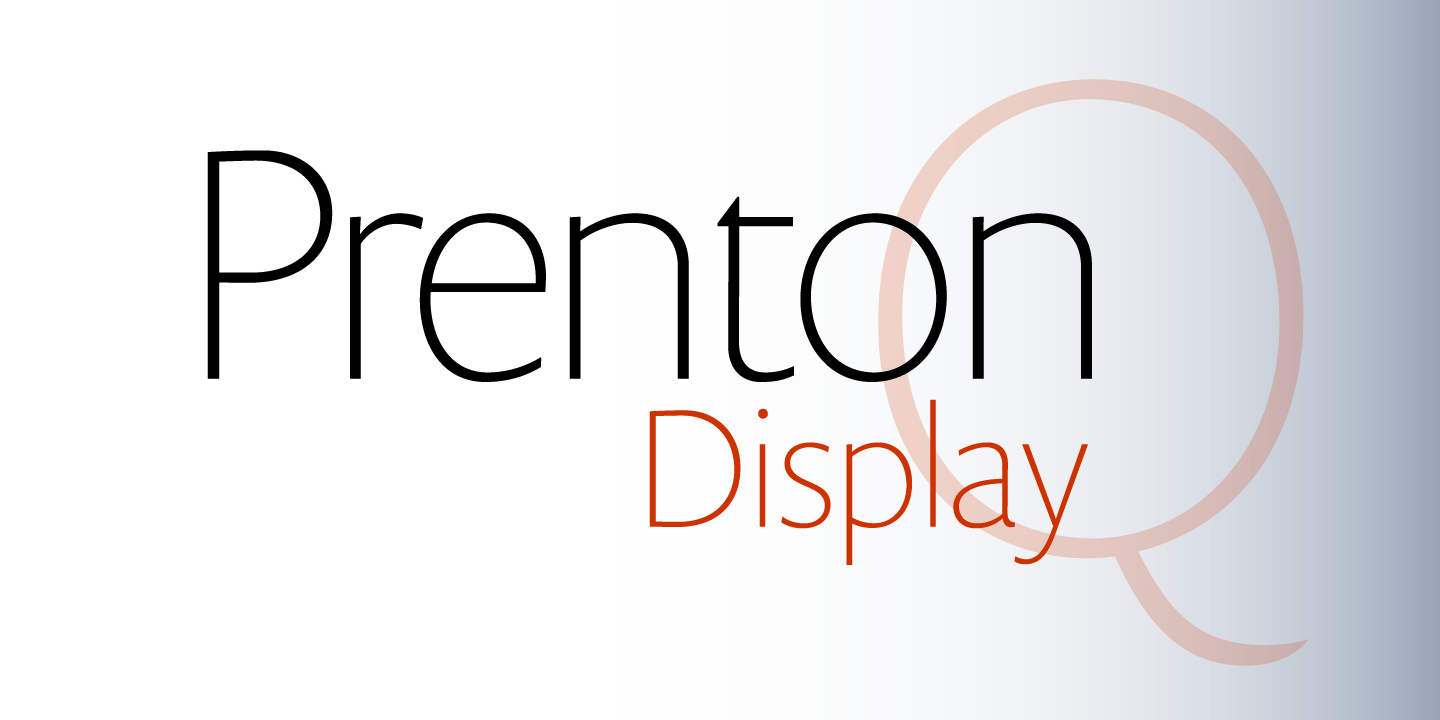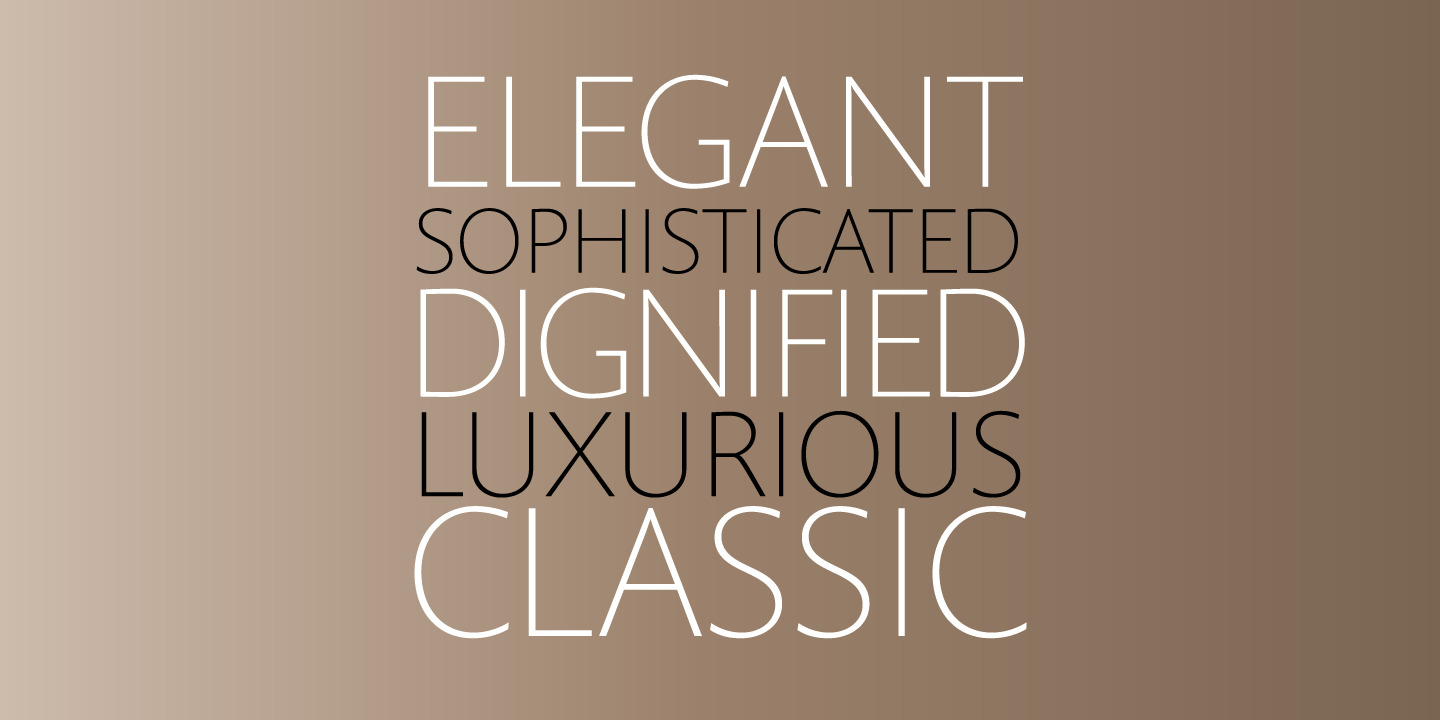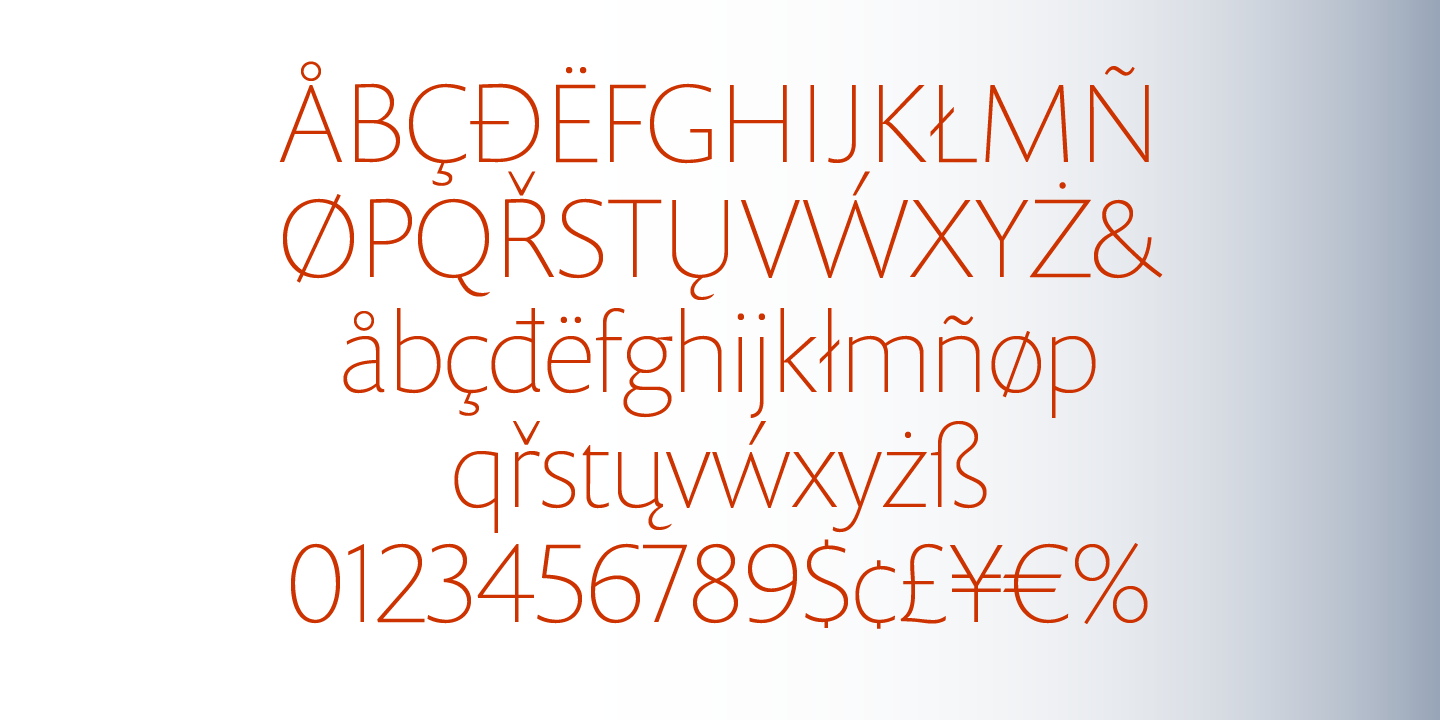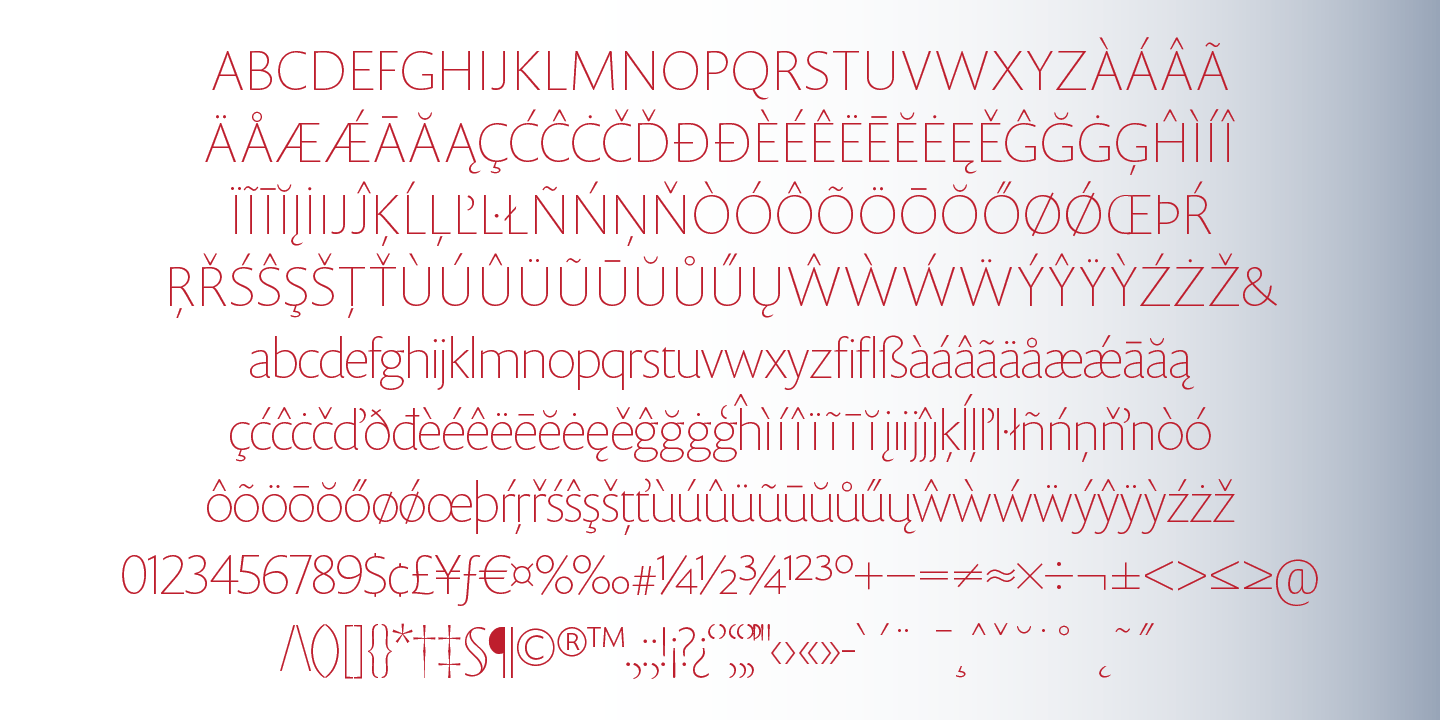
Prenton Display
Font Family by BluHead Studio
Prenton Display is an elegant and meticulously drawn sans serif typeface by Roy Preston. This thin display font is perfect for headlines where a sophisticated aesthetic is desired. Prenton Display supports an extended European character set.